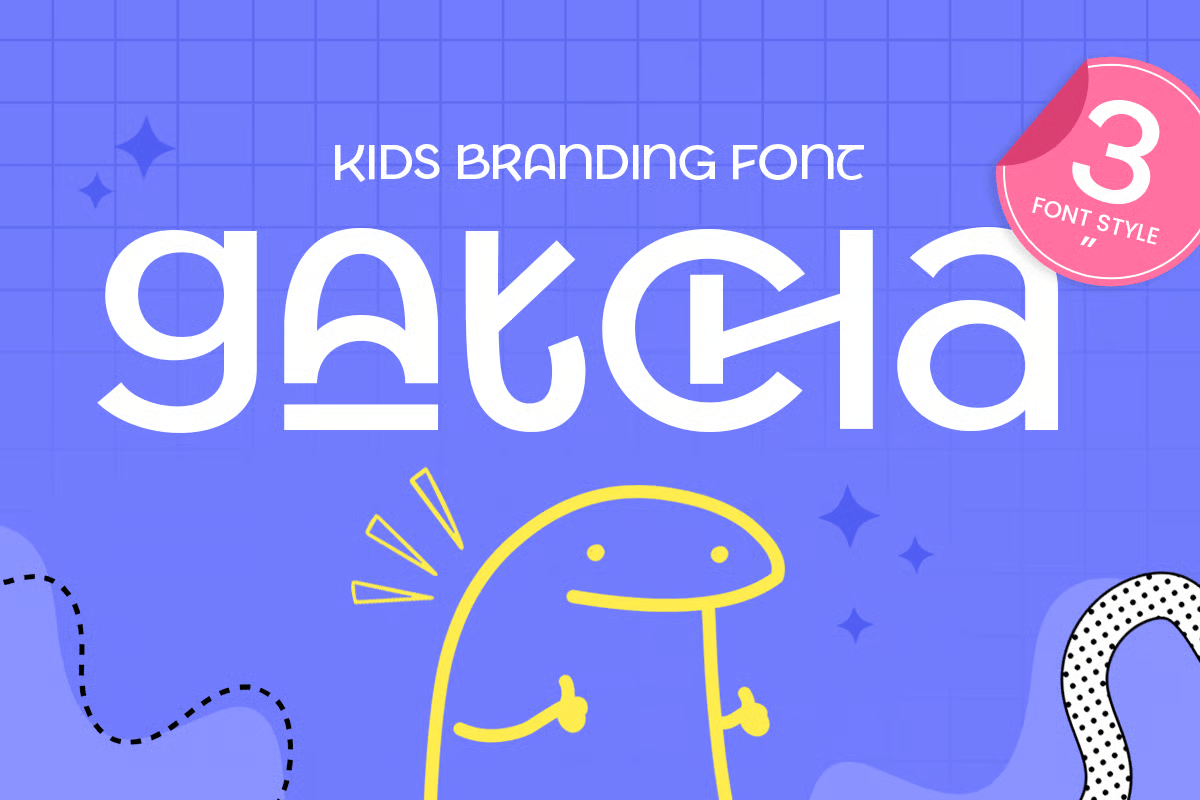
Gatcha
-Kids Branding Font
gatcha regular
Gatcha
gatcha inline
Gatcha
gatcha outline
Gatcha
Gatcha is a kids branding font designed to bring joy, imagination, and friendly character to your creative projects. With rounded shapes, soft edges, and a lively personality, this typeface is perfect for children’s products, playful brand identities, storybooks, learning materials, and fun packaging.
Crafted to look approachable and energetic, Gatcha gives your designs a bright, cheerful feel that instantly appeals to young audiences. Its bold simplicity and charming forms make it ideal for logos, posters, merchandise, app interfaces, and social media graphics targeting kids and families.
Whether you're designing educational content, toy branding, birthday invitations, or colorful marketing visuals, Gatcha brings warmth, positivity, and creativity to every layout — both print and digital.
Gatcha – Kids Branding Font Features
• Soft and rounded playful letterforms
• Ready with 3 Styles: Regular, Inline, and Outline
• Perfect for kids’ branding, packaging, storybooks, and cheerful posters
• Friendly shapes that enhance fun and approachability
• Great for logos, merchandise, education materials, and social graphics
• OpenType features for improved creative flexibility
Create joyful and memorable children-friendly branding with Gatcha – the perfect playful font for fun and colorful design. 🌈✨